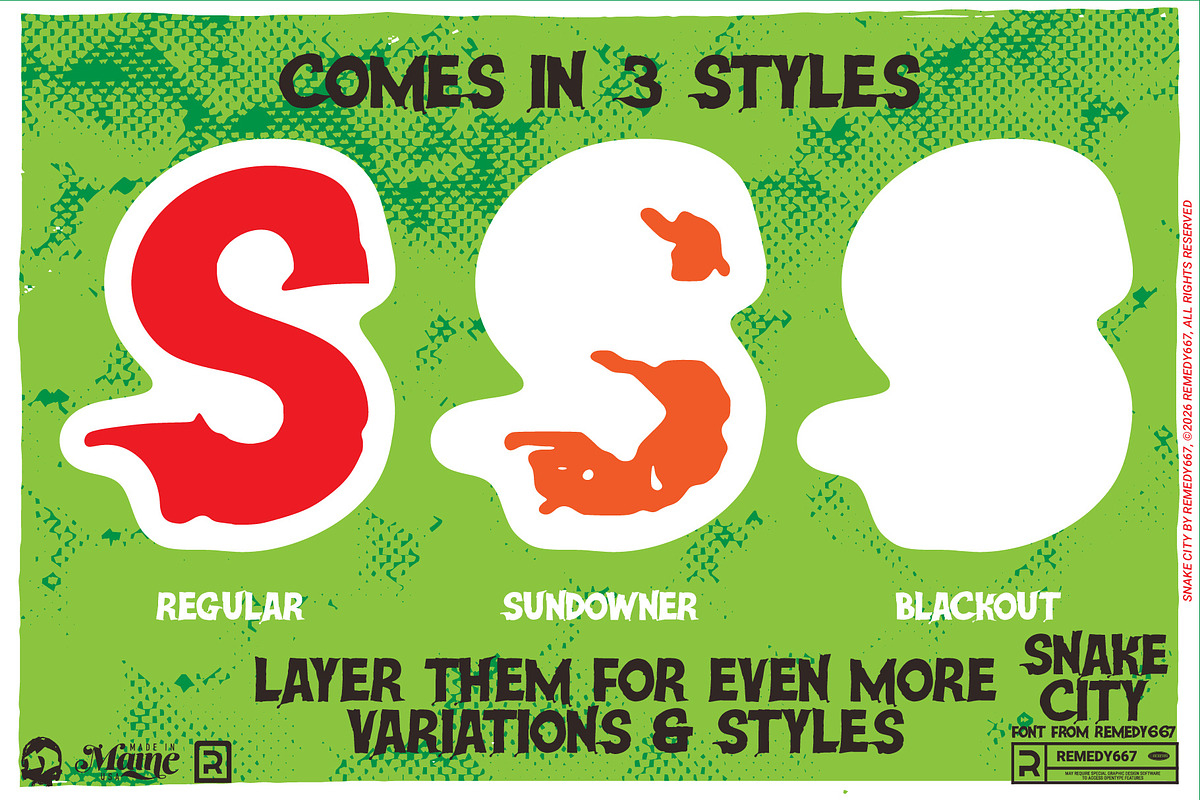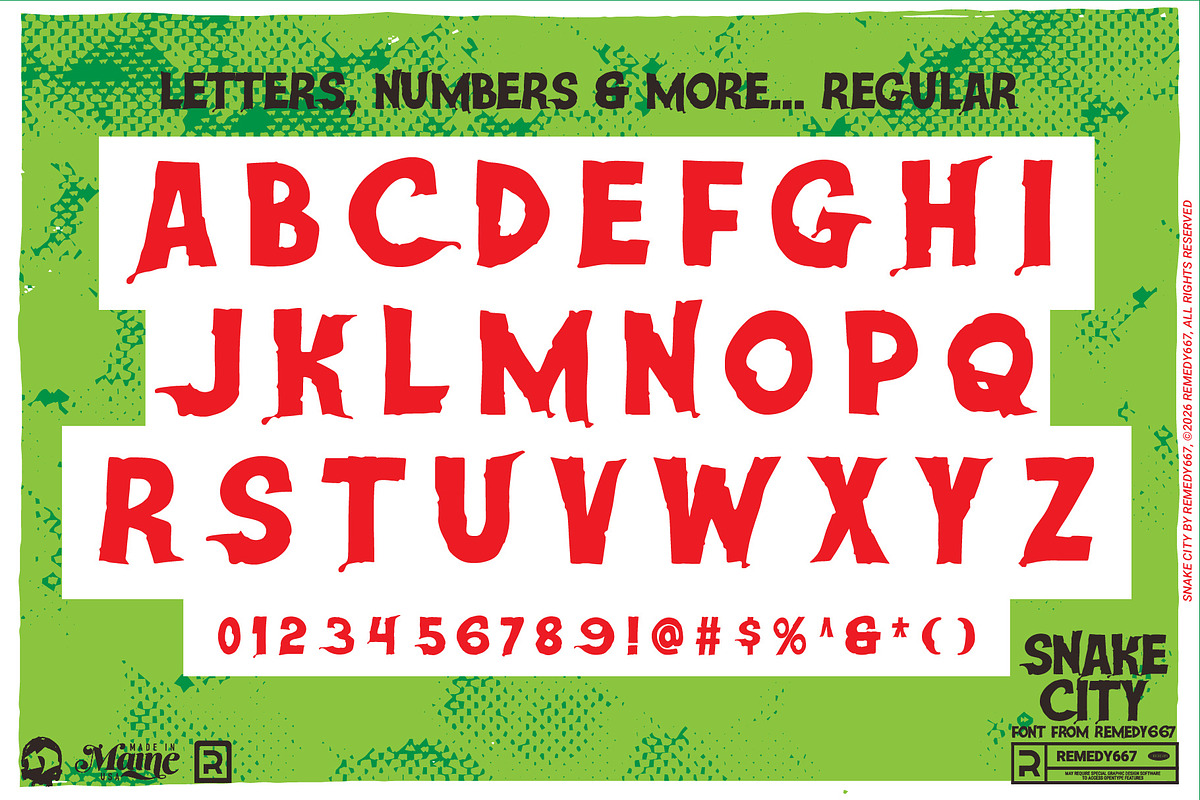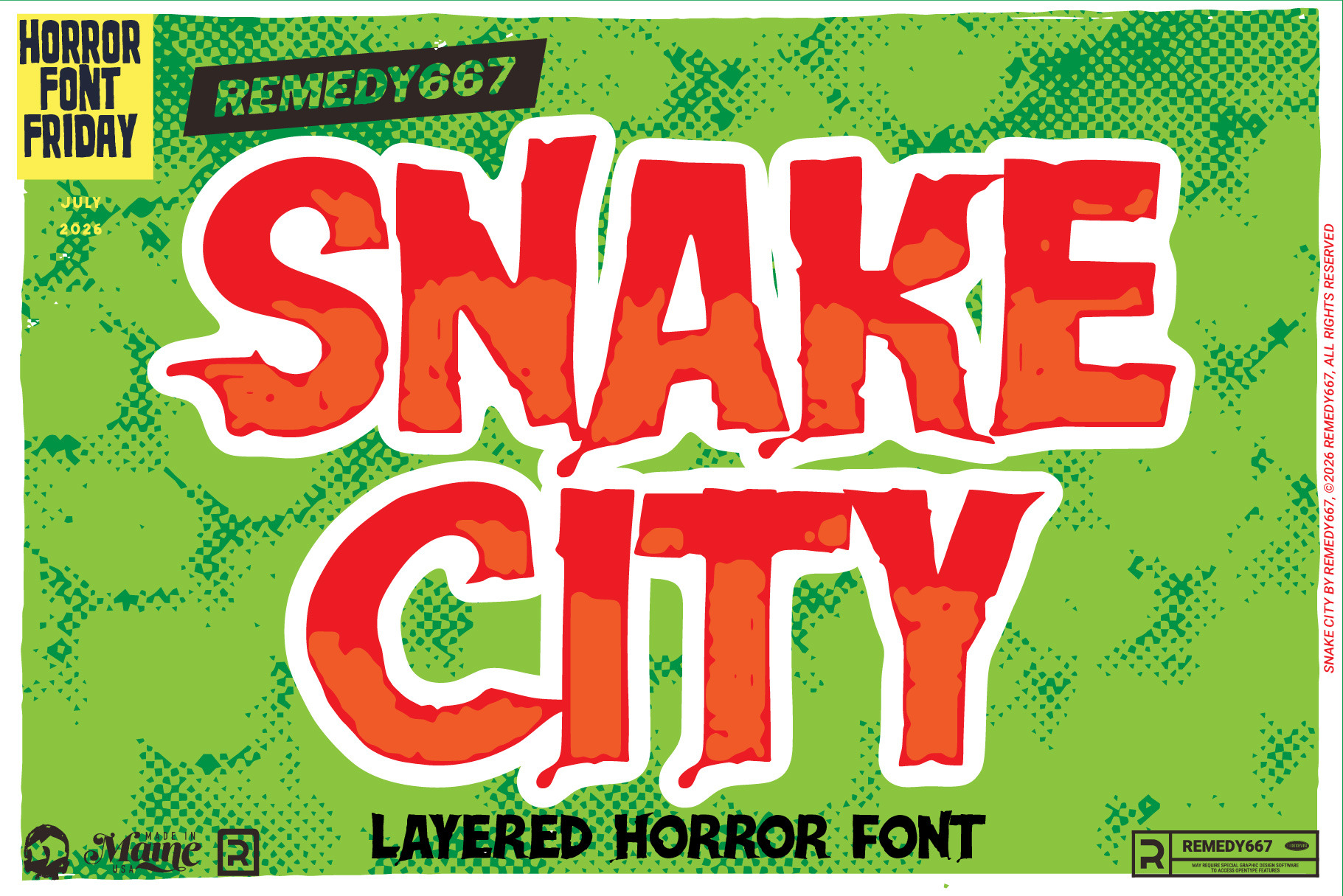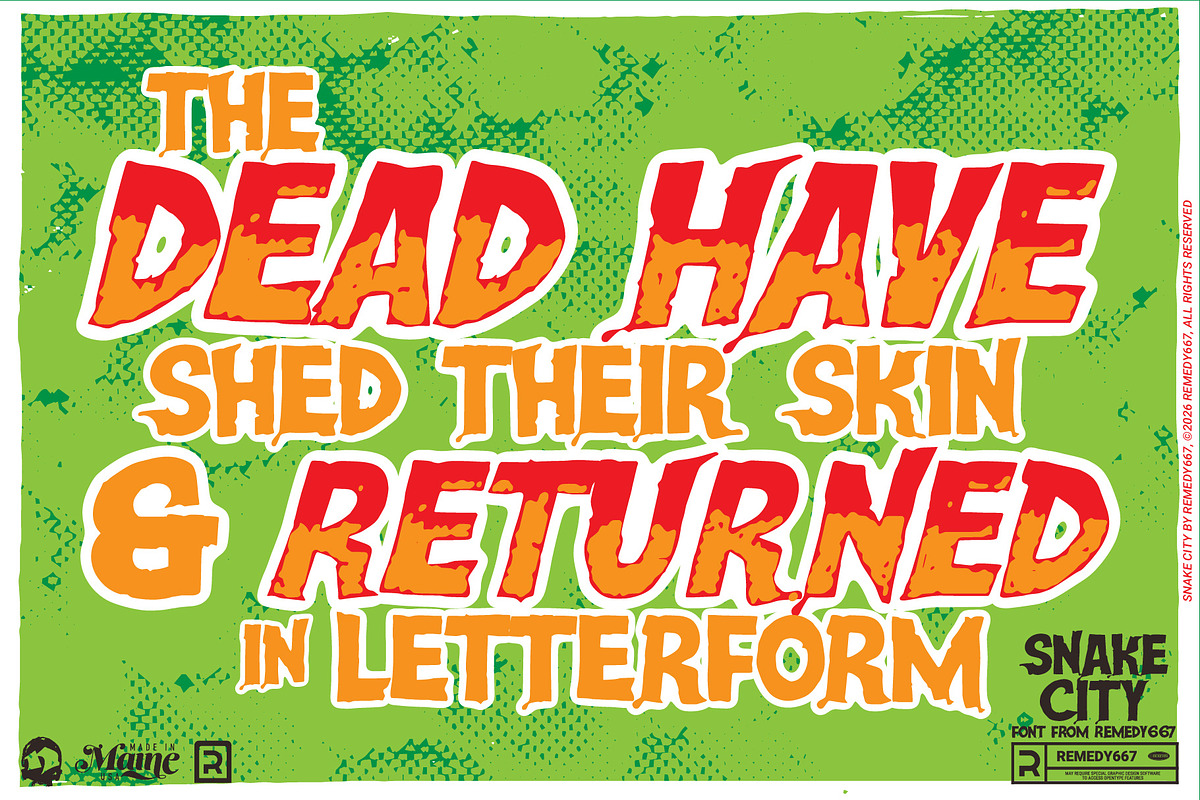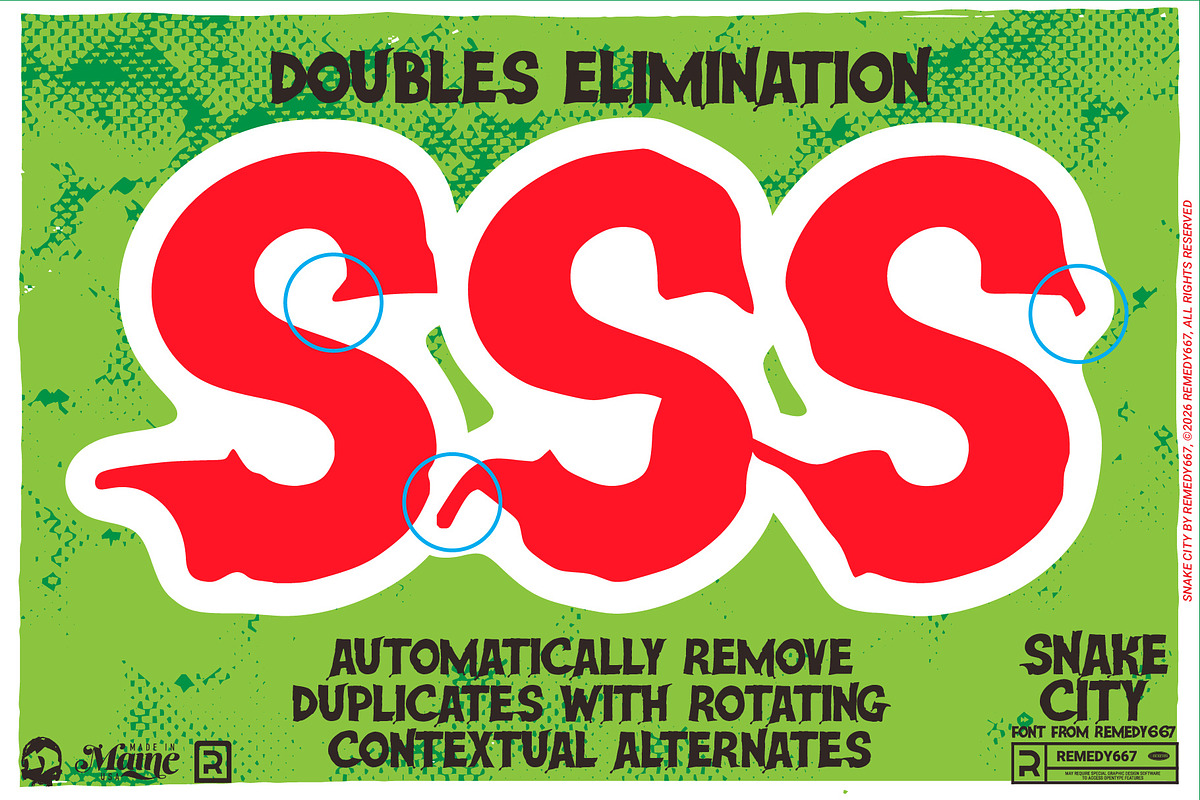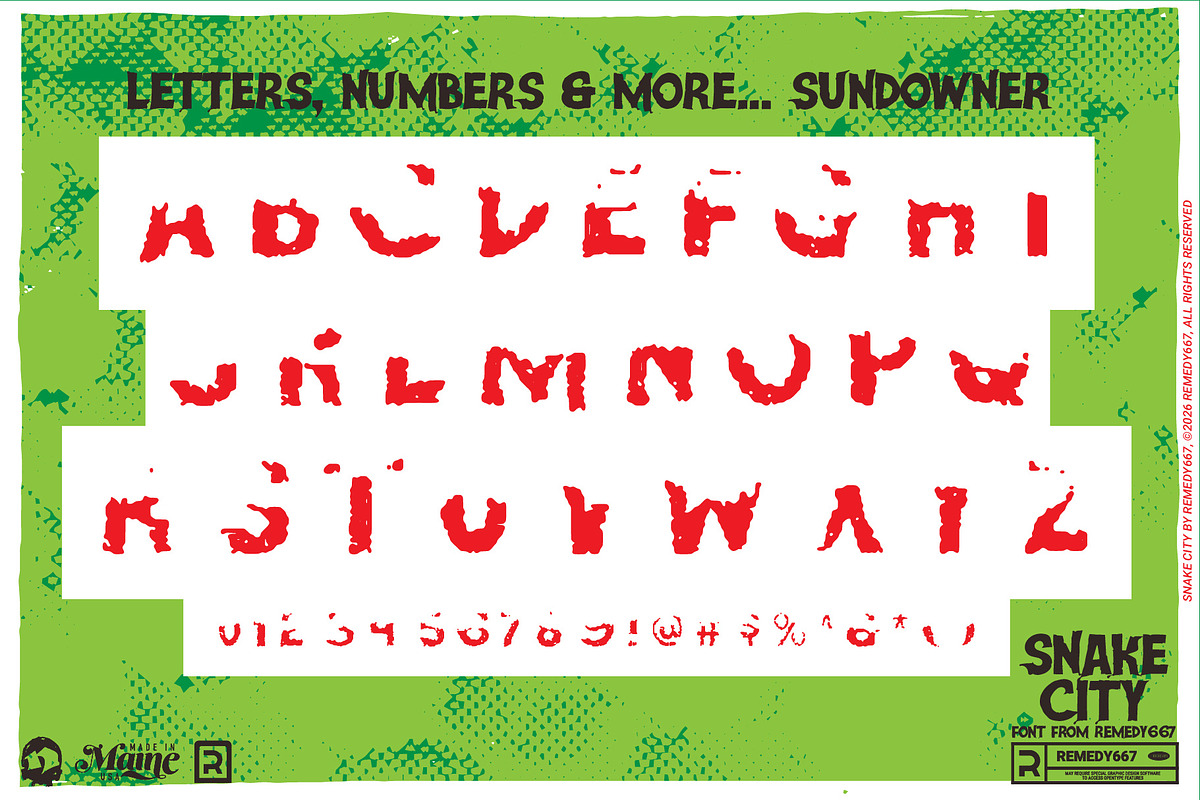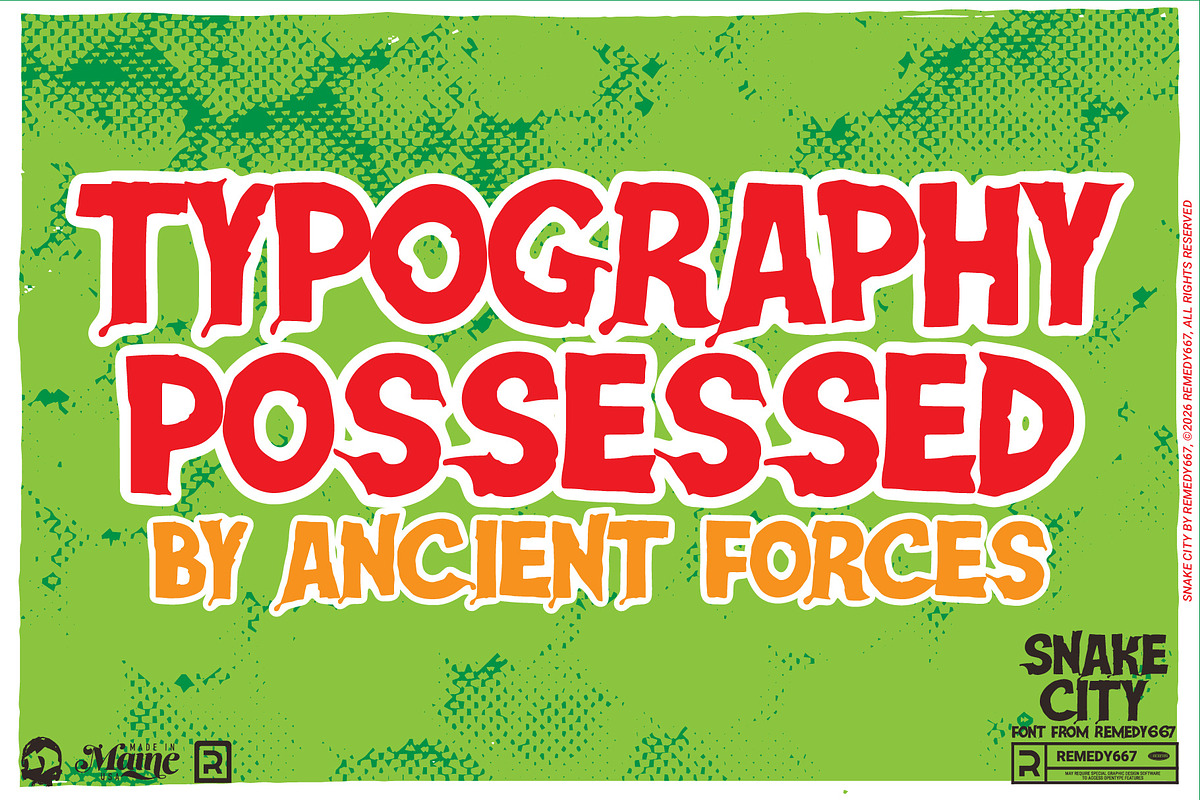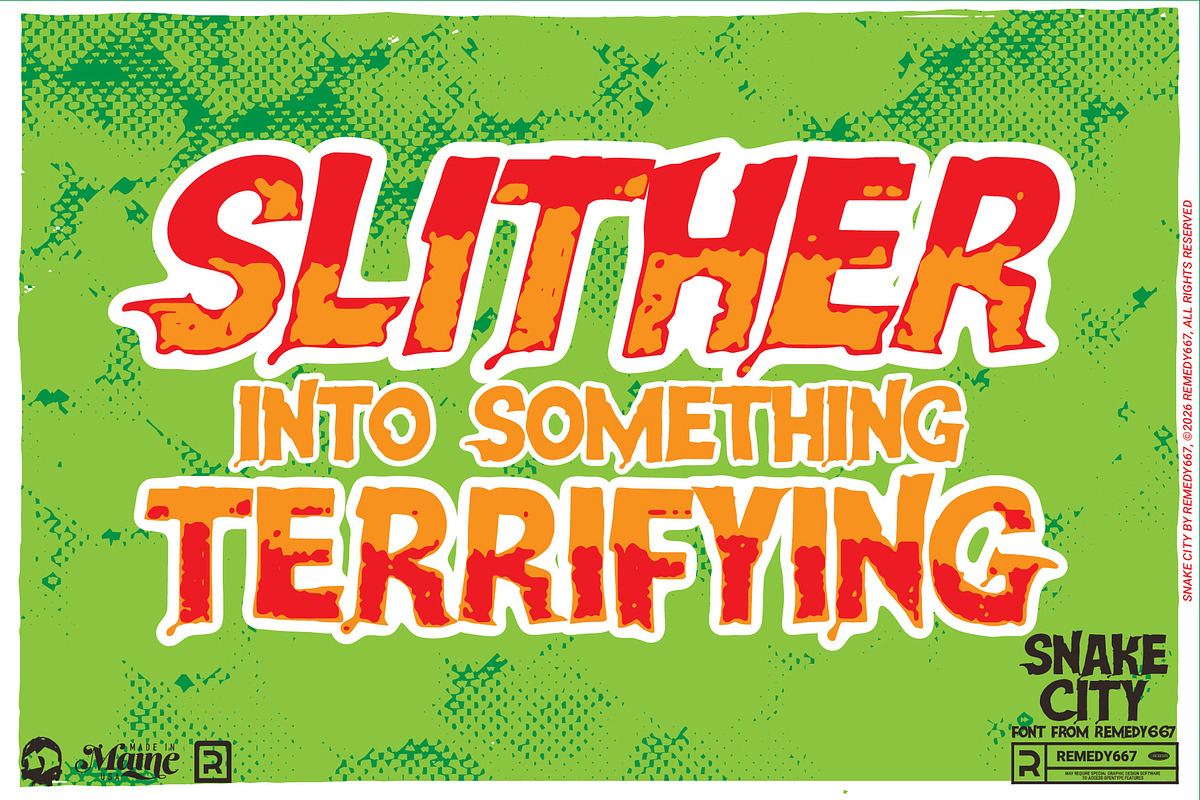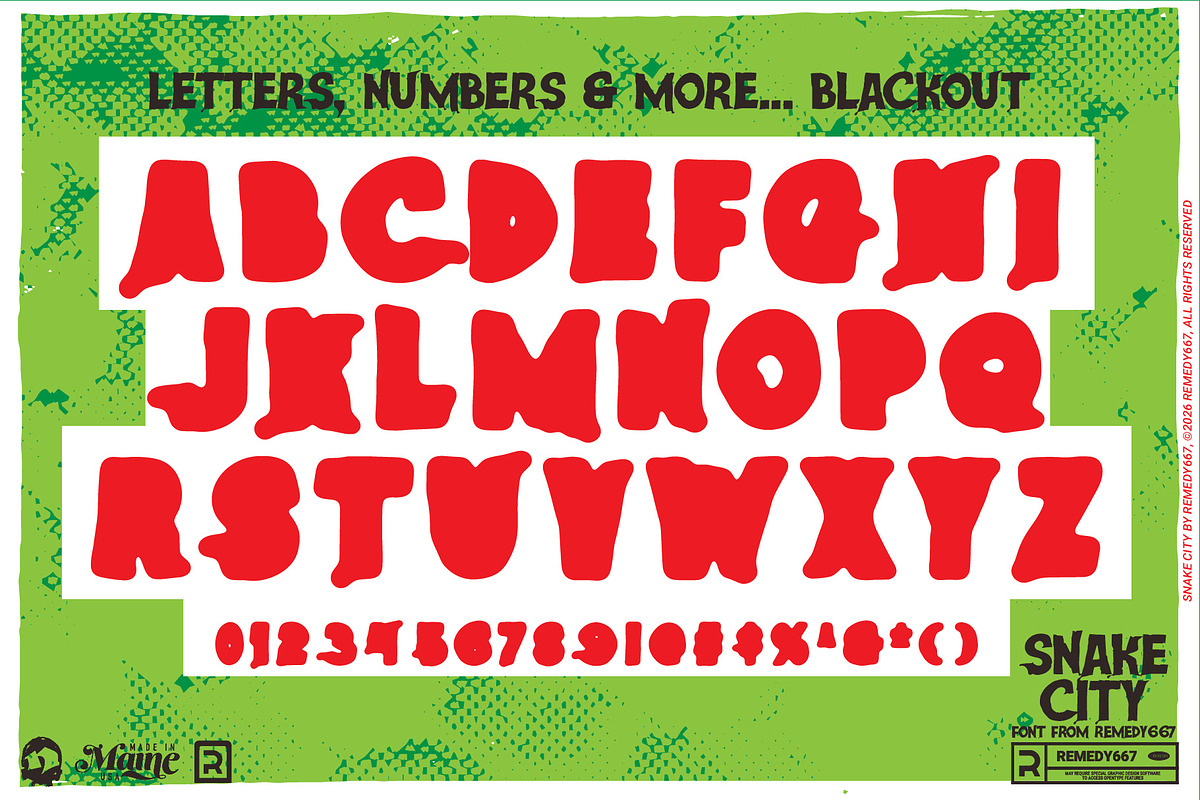
Snake City - Layered Font
Keep your eyes on the ground, you’ve just slithered into Snake City! Inspired by the lurid press book for Horror on Snape Island (1972), this venomous display typeface coils around your headlines with sinister curves and vintage drive-in attitude. One look, and your audience will be charmed… right before the strike!
Snake City is bold, playful, and packed with classic horror flavor. Its layered styles and rotating characters give your typography the lively, hand-crafted feel of vintage movie advertising, making it just as deadly for posters as it is for logos and promotional graphics.
Inspired by the press book lettering for Horror on Snape Island (1972)
Three layerable font styles for bold custom effects
Rotating characters for natural, varied typography
Multilingual support for worldwide serpent sightings